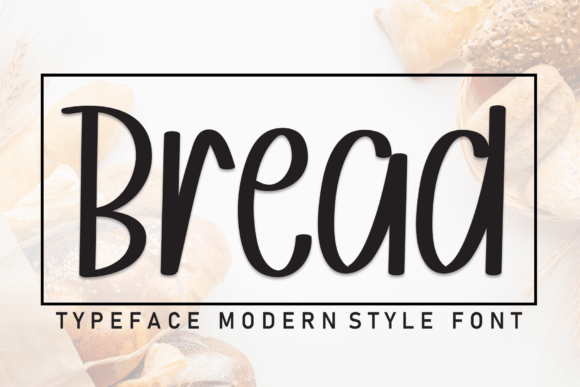
Adding a Slice of Whimsy to Your Designs
Have you ever found yourself staring at a blank canvas, desperately seeking the perfect font to bring your design to life? You know that feeling when you’re searching for the perfect combination of style and personality to match your creative vision? For many designers, that perfect font is the key to unlocking a truly unique and captivating design.
Enter Bread Font, a delightful handwritten display font that’s sure to add a touch of warmth and personality to any project. With its sweet and friendly demeanor, Bread Font is perfect for writing wedding invitations, creating eye-catching cards, or adding a playful twist to any design that needs a fun touch. Whether you’re a seasoned designer or just starting out, Bread Font is a valuable addition to your toolkit, offering endless possibilities for creative expression.
Bread Font Key Features
- Unique Characteristics: The Bread Font features a distinctive, hand-drawn design with a warm, inviting feel, making it ideal for use in food, baking, and culinary-related projects.
- Kerning and Ligatures: The font includes advanced kerning and ligature features, ensuring that text sets are displayed with precision and clarity, even at small font sizes.
Bread Font Review
Overall, I think Bread Font is a unique and interesting font. Here are some things that really stand out:
- ✨ It’s very readable, even at smaller sizes. I’ve used it for body text and it looks great.
- ✨ The font has a lot of personality, which is great for creative projects or branding.
- ✨ It’s available in a range of weights and styles, making it easy to find the right fit for your project.
- ⚠️ The font may not be suitable for formal or professional projects, as it’s a bit too playful and casual.
- ⚠️ It’s not as versatile as some other fonts, and may not work well in certain contexts (e.g. academic or technical writing).
- ⚠️ Some of the characters may not be as well-designed as others – for example, the ampersand (&) looks a bit awkward.
Overall, I think Bread Font is a solid choice for creative projects or personal branding. It’s a bit limited in its applications, but it’s definitely a unique and interesting font. With a little creativity, you can use it to add some personality to your design.
Tips for Getting the Most Out of Bread Font
For the best results, use Bread Font in combination with high-quality images and a clear design concept. Experiment with different font sizes, styles, and colors to create a visually appealing design. Consider using Bread Font for titles, headings, and short paragraphs of text.
Bread Font is ideal for creative projects such as:
– Menu boards
– Food packaging
– Advertising materials
– Print materials
Alternatives to Bread Font
Open Sans is a clean and modern sans-serif font. It is suitable for digital interfaces, logos, and body text. Open Sans is highly legible and readable in various sizes and resolutions. It is a great alternative to Bread Font for designers who want a clean and minimalist look. Compared to Bread Font, Open Sans is more versatile and can be used in a wider range of applications.
Lato is a sans-serif font with a friendly and approachable feel. It is suitable for body text, headings, and logos. Lato is highly customizable and can be used in various contexts, from digital interfaces to print materials. Compared to Bread Font, Lato has a more humanistic feel and is more suitable for creative and artistic projects.